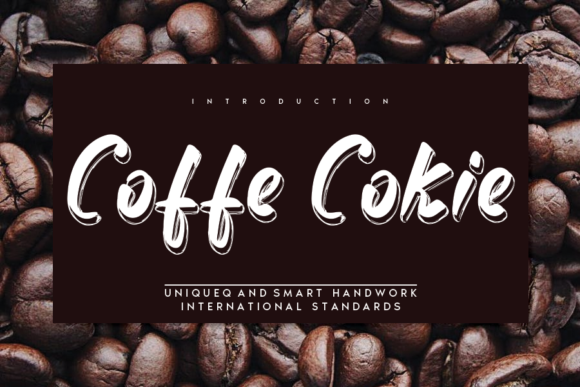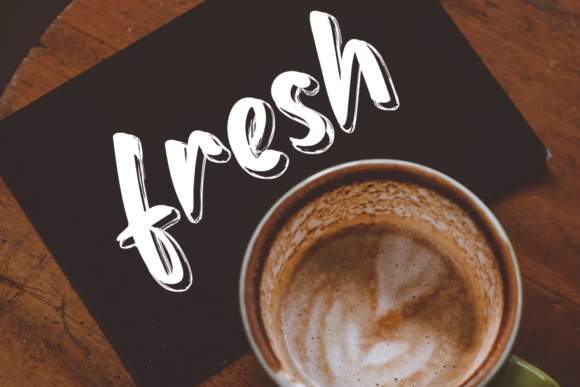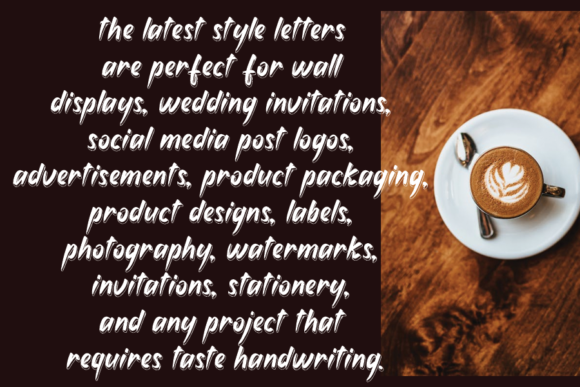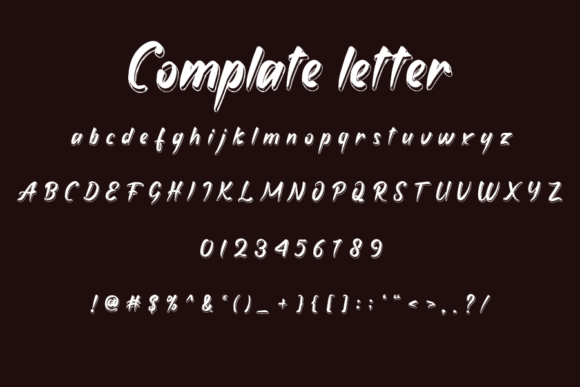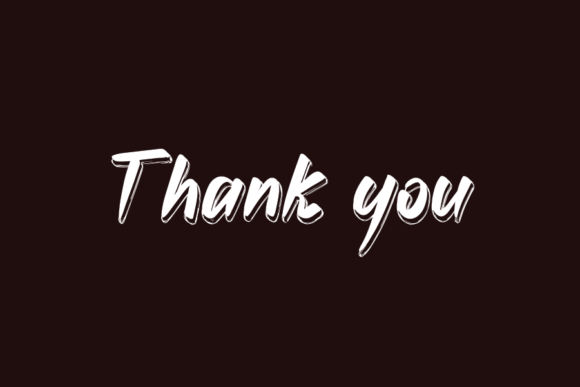
Coffe Cokie Font
About Coffe Cokie Font
Coffe Cokie sounds like an interesting and versatile handwritten font that brings a unique touch to various design projects. With its clean and quirky style, this font offers a wide range of creative possibilities for different applications. Here are some exciting ways you can use Coffe Cokie to add a distinctive and charming vibe to your designs:
1. Logos: Create memorable and eye-catching logos for businesses and projects, capturing the essence of your brand with Coffe Cokie’s unique handwritten look.
2. Branding: Use Coffe Cokie as part of your brand’s visual identity to infuse a sense of creativity and originality into your overall brand image.
3. Social Media Graphics: Design engaging and captivating graphics for your social media platforms, attracting attention with Coffe Cokie’s distinct and charming letters.
4. Crafty DIY Projects: Incorporate Coffe Cokie into various DIY craft projects, such as handmade cards, gift tags, and personalized gifts, for a touch of creativity.
5. Product Packaging: Add a unique and artistic flair to product packaging, making your products stand out on the shelves with Coffe Cokie’s unconventional style.
6. Branding for Cafés and Coffee Shops: Use Coffe Cokie to design branding materials for coffee shops and cafes, reflecting the cozy and artistic atmosphere.
7. Greeting Cards: Create one-of-a-kind greeting cards for various occasions, conveying heartfelt messages with Coffe Cokie’s charming and quirky font.
8. Website Design: Use Coffe Cokie to add an artistic and handcrafted element to your website’s design, enhancing the user experience and showcasing your creativity.
9. DIY Art Prints: Design art prints featuring unique and artistic quotes and illustrations, perfect for home decor and gifting.
10. Handmade Crafts: Personalize handcrafted items and DIY crafts with Coffe Cokie to add an authentic and artistic touch.
11. Digital Marketing Materials: Design eye-catching marketing materials, such as email newsletters and digital ads, using Coffe Cokie’s distinctive style.
12. DIY Wedding Invitations: Create unconventional and artistic wedding invitations with Coffe Cokie, setting the tone for a unique and memorable event.
13. Digital Products: Incorporate Coffe Cokie into digital products, such as digital stickers, printable designs, and digital art.
14. DIY Planner and Journaling: Customize planners and journals with Coffe Cokie to add an artistic and personal touch to your daily planning.
15. Artistic Quotes: Share inspiring and artistic quotes on social media using Coffe Cokie’s handcrafted and unique font.
16. Packaging Labels: Design charming and artistic labels for homemade products, adding a touch of creativity to your packaging.
17. Craft Workshops: Use Coffe Cokie in promotional materials for craft workshops and artistic events to showcase the creative atmosphere.
18. Children’s Book Covers: Design imaginative and playful book covers for children’s books using Coffe Cokie’s whimsical and quirky letters.
19. DIY Home Decor: Create personalized and artistic home decor items, such as canvas prints and wall art, using Coffe Cokie’s unique style.
20. Personal Projects: Use Coffe Cokie for any artistic and creative personal projects that need a touch of originality.
In summary, Coffe Cokie’s clean and quirky handwritten style makes it a perfect fit for a wide range of design projects, from logos and branding to social media graphics and DIY crafts. Embrace the uniqueness of Coffe Cokie and let your creativity shine in creating exceptional works with this artistic and versatile handwritten font. Whether you’re designing for businesses, events, or personal projects, Coffe Cokie will add a touch of artistry and originality to your designs, making them stand out and leave a lasting impression on your audience.